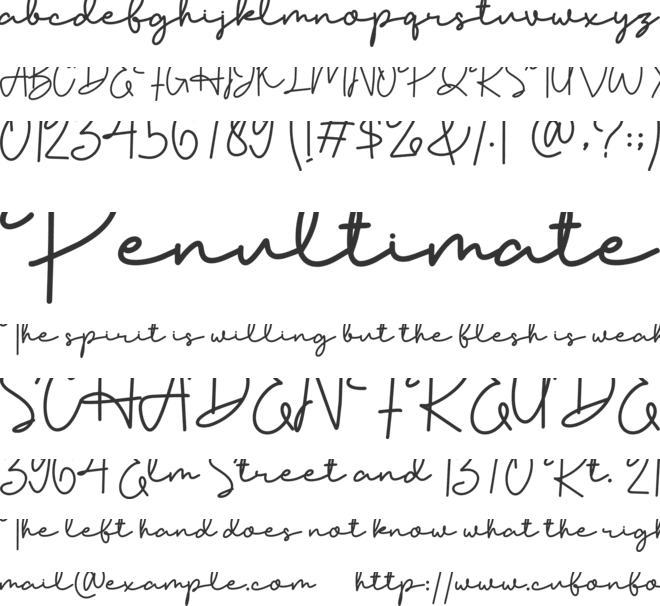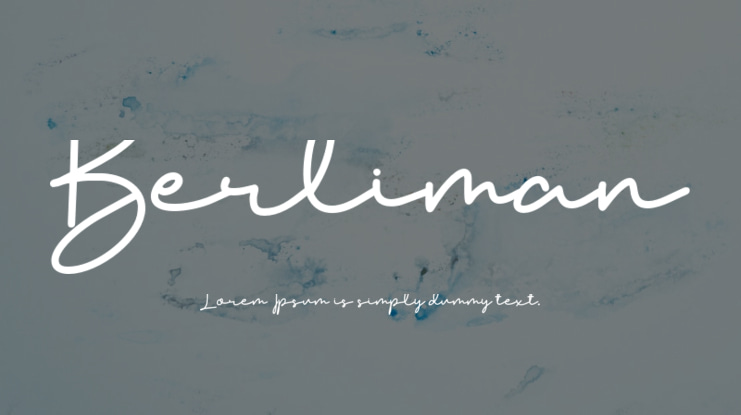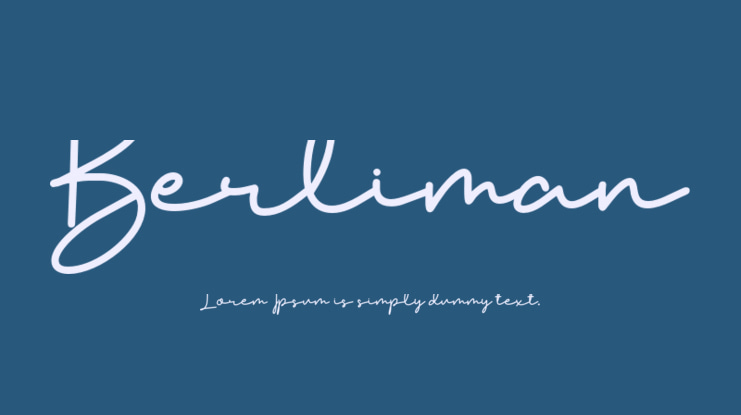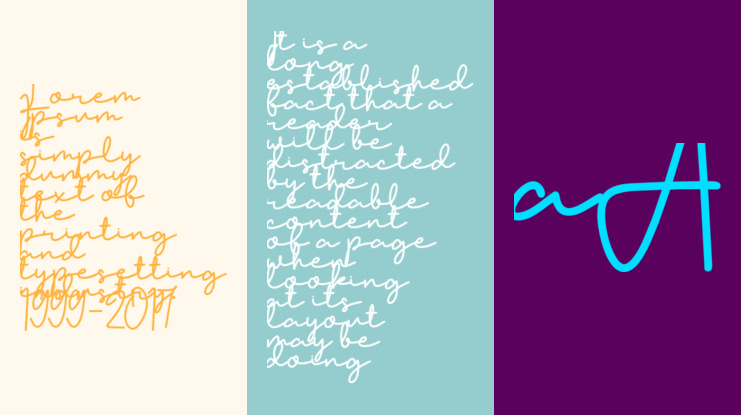
Berliman Font
Berliman is an elegant script font that has been meticulously crafted to emulate the look of natural handwriting. It is an excellent choice for various design purposes such as branding projects, logo design, wedding invitations, social media posts, ads, product packaging, merchandise designs, labels, photography, watermarks, stationery, and any other projects that require a touch of handcrafted elegance.